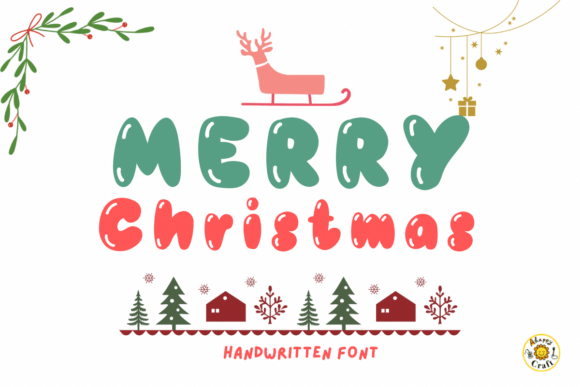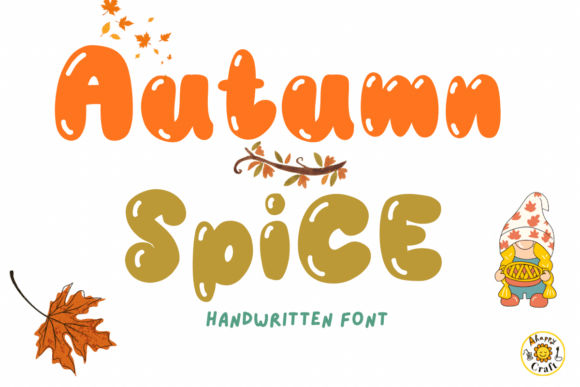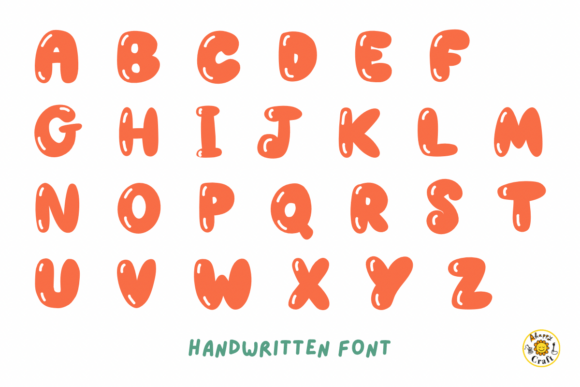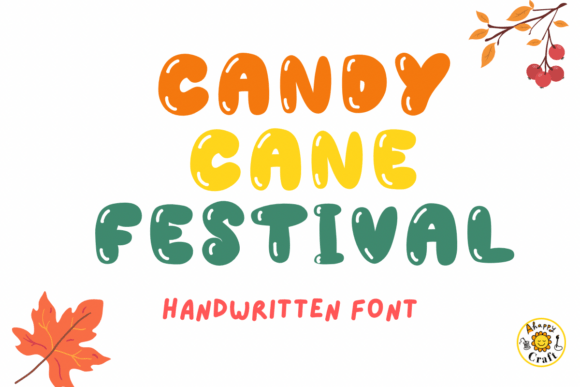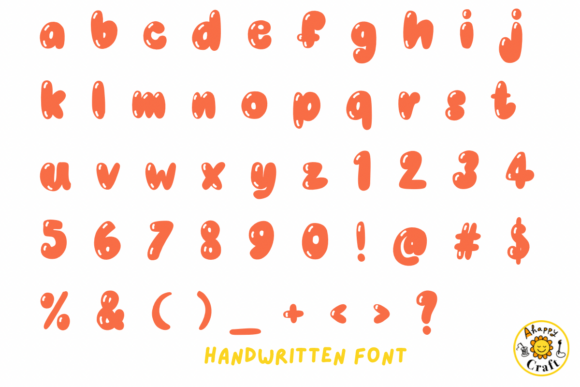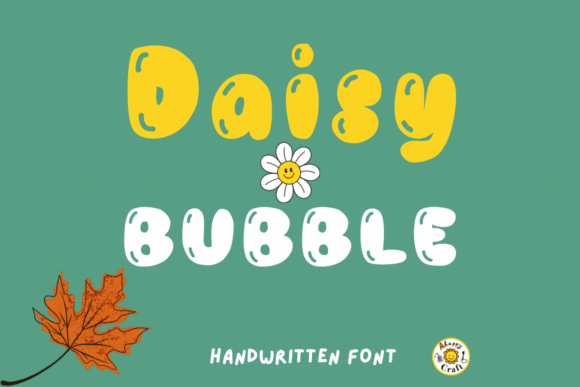
Introducing Happy Pumpkin Font: Add a Joyful Touch to Your Designs
Are you looking for a font that can add a playful and whimsical touch to your designs? Look no further than Happy Pumpkin Font! This cute and quirky decorative font is perfect for designers and crafters who want to create unique and eye-catching projects. In this article, we’ll explore the features and benefits of Happy Pumpkin Font and show you how to make the most of this beautiful display font.
What is Happy Pumpkin Font?
Happy Pumpkin Font is a decorative font designed to bring a smile to your face. Its playful and quirky style makes it perfect for a variety of design projects, from Halloween-themed designs to everyday crafts. The font features rounded edges and a bouncy feel, giving it a joyful and carefree vibe that’s sure to delight.
Key Features of Happy Pumpkin Font
- Cute and Quirky Design: Happy Pumpkin Font features a unique and playful design that’s sure to add a touch of whimsy to your projects.
- Decorative Style: This font is perfect for decorative designs, including titles, headings, and other display text.
- Easily Readable: Despite its playful style, Happy Pumpkin Font is easy to read, making it perfect for use in a variety of design projects.
Benefits of Using Happy Pumpkin Font
So why should you choose Happy Pumpkin Font for your design projects? Here are just a few benefits of using this beautiful display font:
- Adds a Joyful Touch: Happy Pumpkin Font is designed to bring a smile to your face. Its playful style is sure to add a joyful touch to your designs.
- Perfect for Seasonal Designs: This font is perfect for seasonal designs, including Halloween, Thanksgiving, and other fall-themed projects.
- Versatile: Happy Pumpkin Font can be used in a variety of design projects, from digital designs to print crafts.
- Easily Customizable: You can easily customize Happy Pumpkin Font to fit your design needs, including changing colors, sizes, and styles.
How to Use Happy Pumpkin Font in Your Designs
Using Happy Pumpkin Font in your designs is easy! Here are a few tips to get you started:
- Pair with Other Fonts: Happy Pumpkin Font pairs well with other fonts, including serif and sans-serif fonts. Experiment with different font combinations to find the perfect look for your design.
- Use for Titles and Headings: This font is perfect for titles and headings. Use it to add a playful touch to your design.
- Add to Digital Designs: Happy Pumpkin Font can be used in digital designs, including social media graphics, blog posts, and more.
- Use for Print Crafts: This font is also perfect for print crafts, including handmade cards, invitations, and other paper crafts.